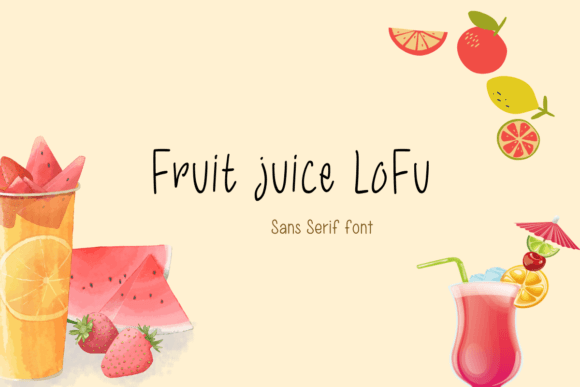
Get ready to add a dash of playful charm to your creative projects with Fruit Juice Lofu Font, the ultimate font for expressing happiness and joy! This adorable sans serif handwritten font will instantly uplift your designs, making them burst with personality and cheer.
Crafted by the talented TanoiCartoonist, Fruit Juice Lofu is a delightful font that will leave a lasting impression on your audience. Its charming curves and playful strokes dance across the page, creating a visual symphony that will capture hearts. Whether you're designing birthday invitations, greeting cards, or social media posts, Fruit Juice Lofu is the perfect choice to add a touch of whimsy and delight.
Its playful nature makes it an excellent font for adding a personal touch to your designs. It's like having a little ray of sunshine that brightens up any project you work on. Imagine your birthday wishes taking on a whole new level of charm, your greeting cards radiating warmth and cheer, and your social media posts bursting with infectious joy.
Imagine your creative visions coming to life with the magic of Fruit Juice Lofu. It's like having a secret weapon in your design arsenal, ready to transform your projects into masterpieces that evoke smiles and spread happiness.